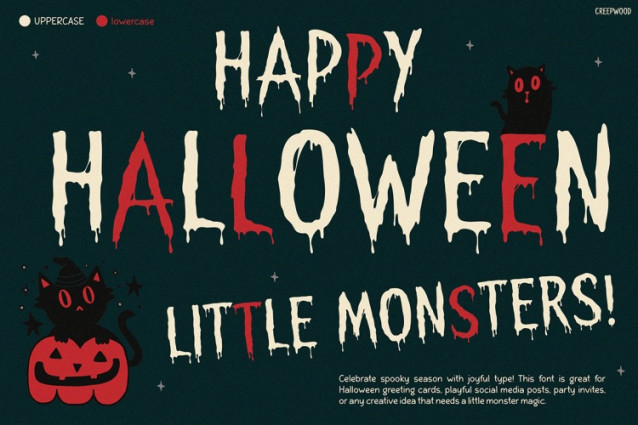
Creepwood Font
Creepwood Font instantly sets the tone for eerie, playful adventures. Not only does this typeface captivate with its blood-dripping strokes, but it also charms with a uniquely spooky personality. Designed with jagged letterforms and a child-friendly horror vibe, this font is visually stunning for any Halloween-themed project. Moreover, the bold red splatter style creates a chilling yet fun impression — perfect for grabbing attention and evoking curiosity. Unlike other horror fonts that may feel too intense, Creepwood strikes a delightful balance between scary and silly. As a result, it becomes the ideal choice for both lighthearted and thrilling design projects.
Whether you’re creating posters, story covers, event flyers, or digital media visuals, Creepwood offers a cinematic flair that immediately draws the eye. In fact, the moment someone sees your design, they’ll know something spooky — but exciting — is coming. Thanks to its expressive style, Creepwood doesn’t just tell a story; it becomes part of it.